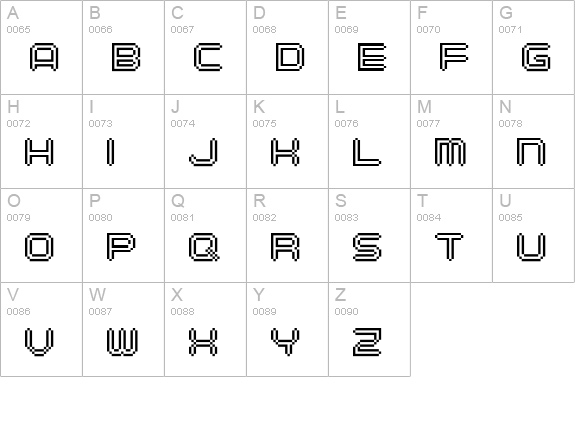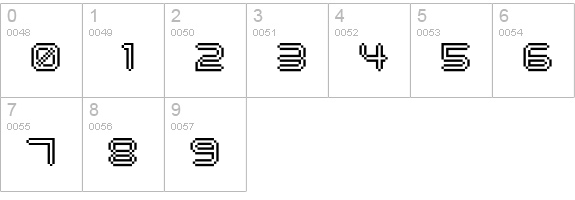
digitalisMAN Font Details
Introducing digitalisMAN font, a stylish and modern typeface perfect for a wide range of design projects. This versatile font features sleek lines and elegant curves that will add a touch of sophistication to any design. Whether you're creating a logo, website, or print material, digitalisMAN font is sure to make a bold statement. Best of all, digitalisMAN font is available for free download at FontsMarket.com. This means you can easily access this high-quality font without any cost, making it a great choice for designers on a budget. Don't miss out on the opportunity to elevate your designs with digitalisMAN font today!